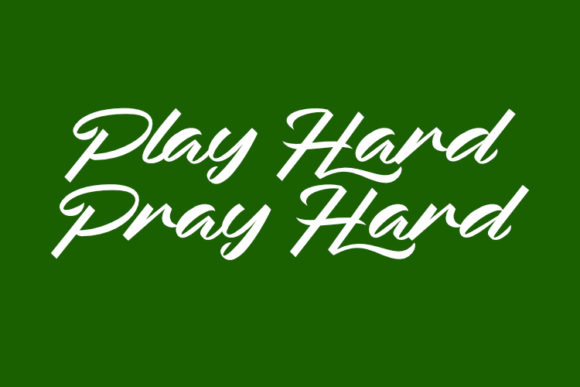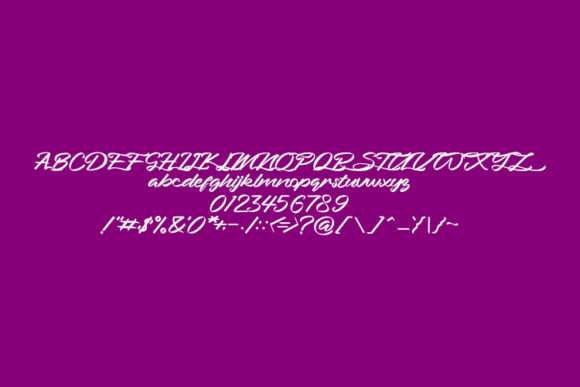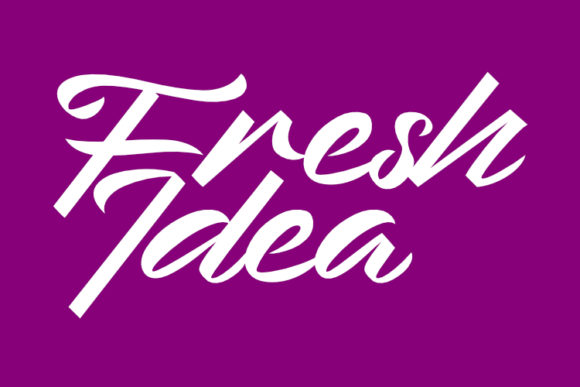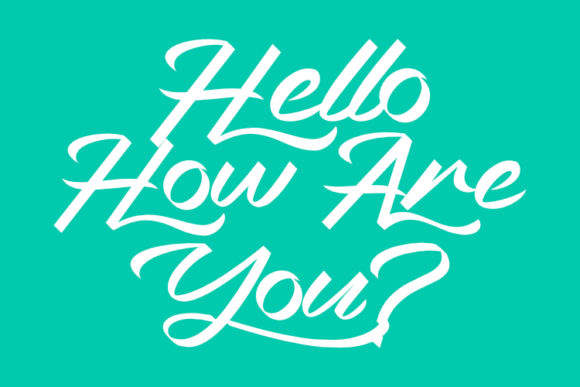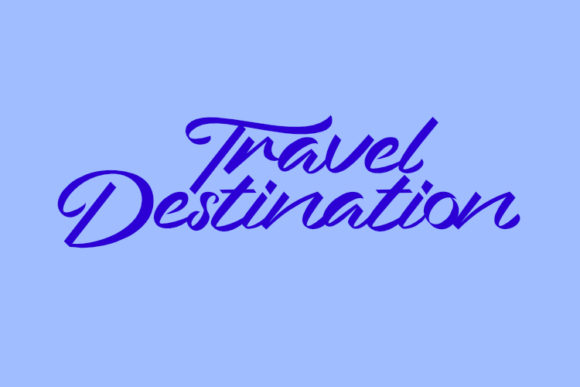
Bahari Font: Elevate Your Designs with Modern Calligraphy
In the world of typography, fonts play a crucial role in conveying the tone and personality of a design. For designers and crafters looking for a stylish and modern calligraphy font, Bahari Font is an excellent choice. This fresh and elegant font is perfect for a wide range of projects, from logos and branding to invitations, stationery, and social media designs.
What is Bahari Font?
The Bahari Font is a modern calligraphy font that boasts a natural and classy look. Its stylish hand-lettering makes it an ideal choice for designers who want to add a touch of sophistication to their designs. Whether you’re working on a logo, invitation, or social media post, Bahari Font is sure to impress.
Key Features of Bahari Font
• Modern Calligraphy: Bahari Font features a modern calligraphy style that is both fresh and elegant.
• Stylish Hand-Lettering: The font’s hand-lettering gives it a natural and classy look that’s perfect for a wide range of designs.
• Versatile: Bahari Font is suitable for various projects, including logos, branding, invitations, stationery, wedding designs, social media designs, and more.
Uses of Bahari Font
Bahari Font is a versatile font that can be used for a variety of design projects. Here are some of the ways you can use this beautiful font:
• Logos and Branding: Create a stunning logo for your brand with Bahari Font. Its modern calligraphy style will give your brand a fresh and elegant look.
• Invitations: Design beautiful invitations for weddings, parties, and other events with Bahari Font. Its stylish hand-lettering will add a touch of sophistication to your invitations.
• Stationery: Use Bahari Font to create stylish stationery, including letterheads, business cards, and envelopes.
• Wedding Designs: Bahari Font is perfect for wedding designs, including wedding invitations, programs, and place cards.
• Social Media Designs: Use Bahari Font to create stunning social media designs, including Facebook posts, Instagram stories, and Twitter headers.
Benefits of Using Bahari Font
Using Bahari Font in your designs offers several benefits, including:
• Unique and Fresh Look: Bahari Font gives your designs a unique and fresh look that will set you apart from the competition.
• Elegant and Sophisticated: The font’s elegant and sophisticated style makes it perfect for designs that require a touch of class.
• Easy to Read: Bahari Font is easy to read, making it perfect for designs that require a clear and concise message.
Bahari Font is a modern and fresh calligraphy font that’s perfect for designers and crafters looking for a stylish and elegant font. Its versatile style makes it suitable for a wide range of design projects, from logos and branding to invitations, stationery, and social media designs. With its unique and fresh look, elegant and sophisticated style, and easy-to-read format, Bahari Font is an excellent choice for anyone looking to elevate their designs.